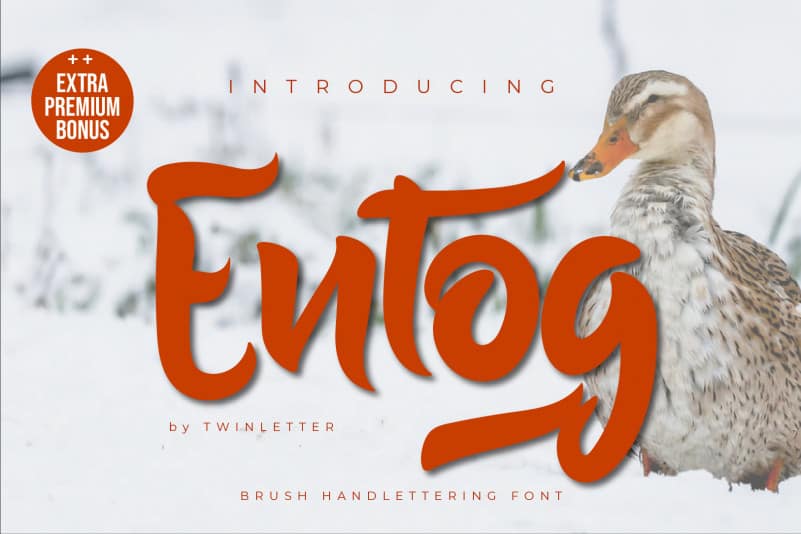
Entog Script Font
Entog Script Font is a casual, fun handwritten font, created by using a brush pen. It will elevate a wide range of design projects to the highest level, be it branding, headings, wedding designs, invitations, signatures, logos, labels, and much more!